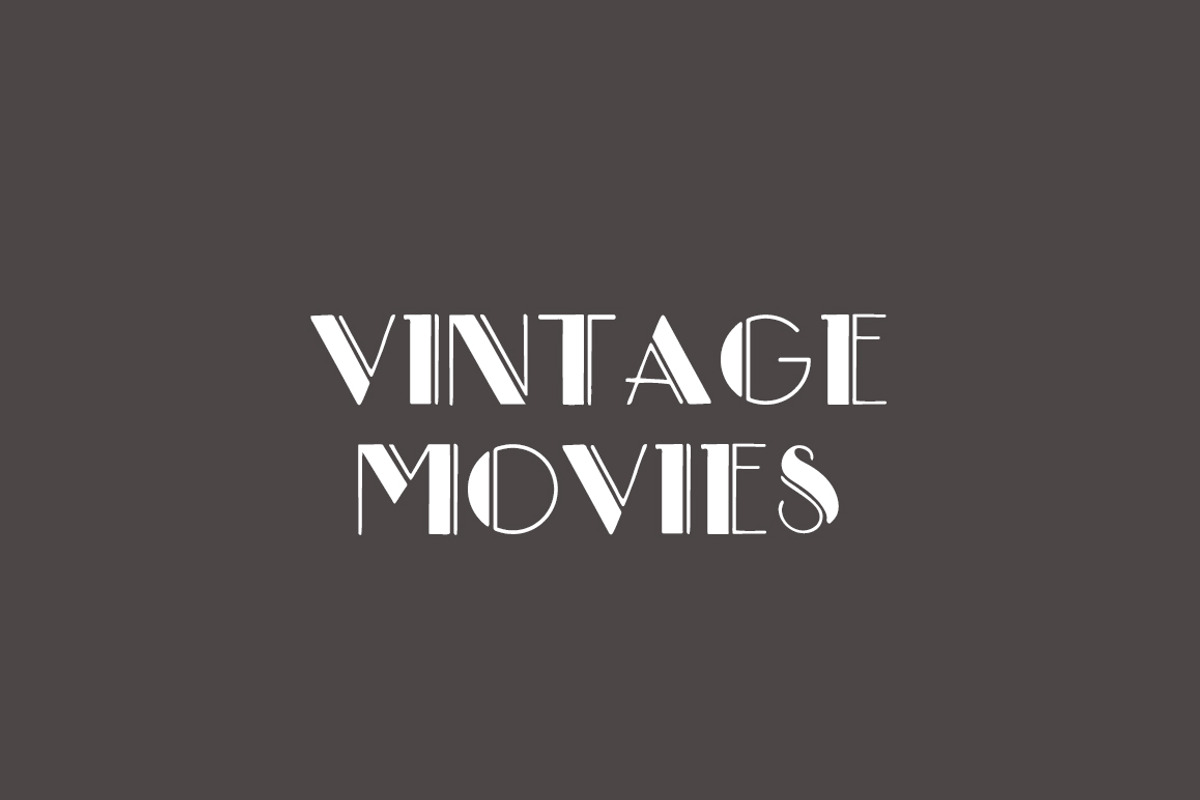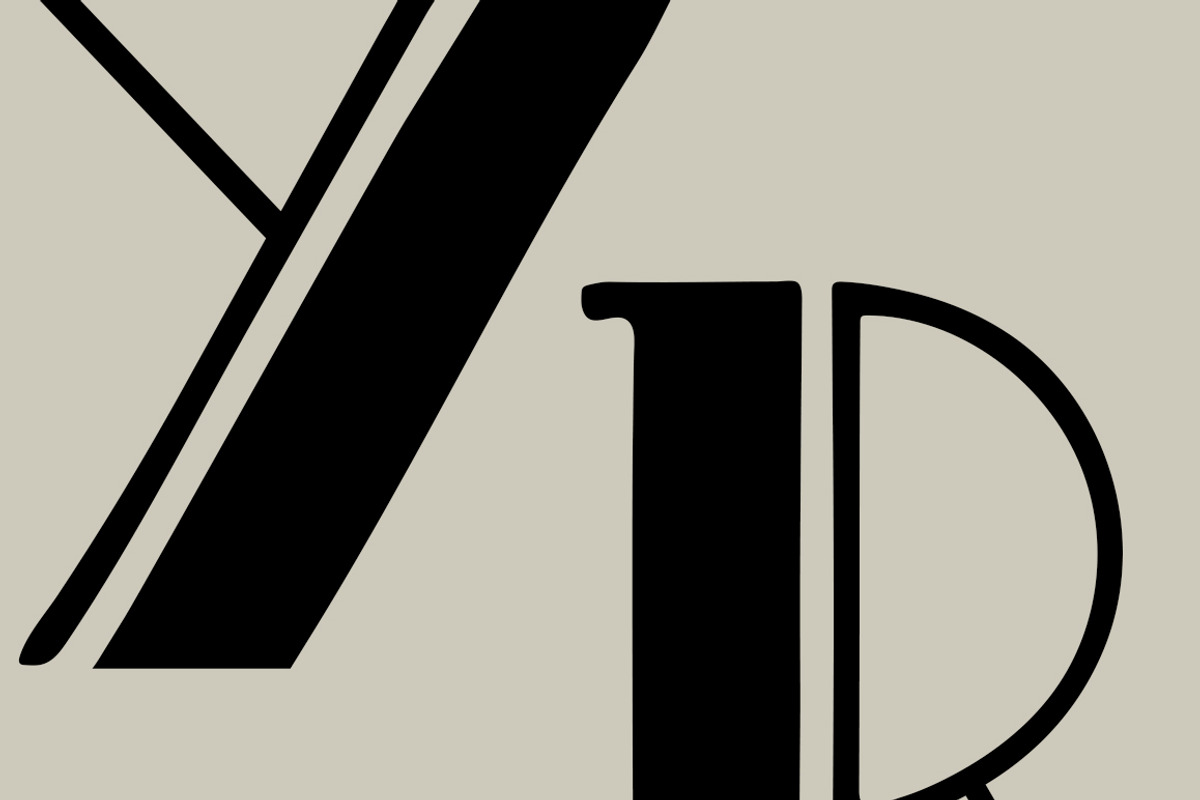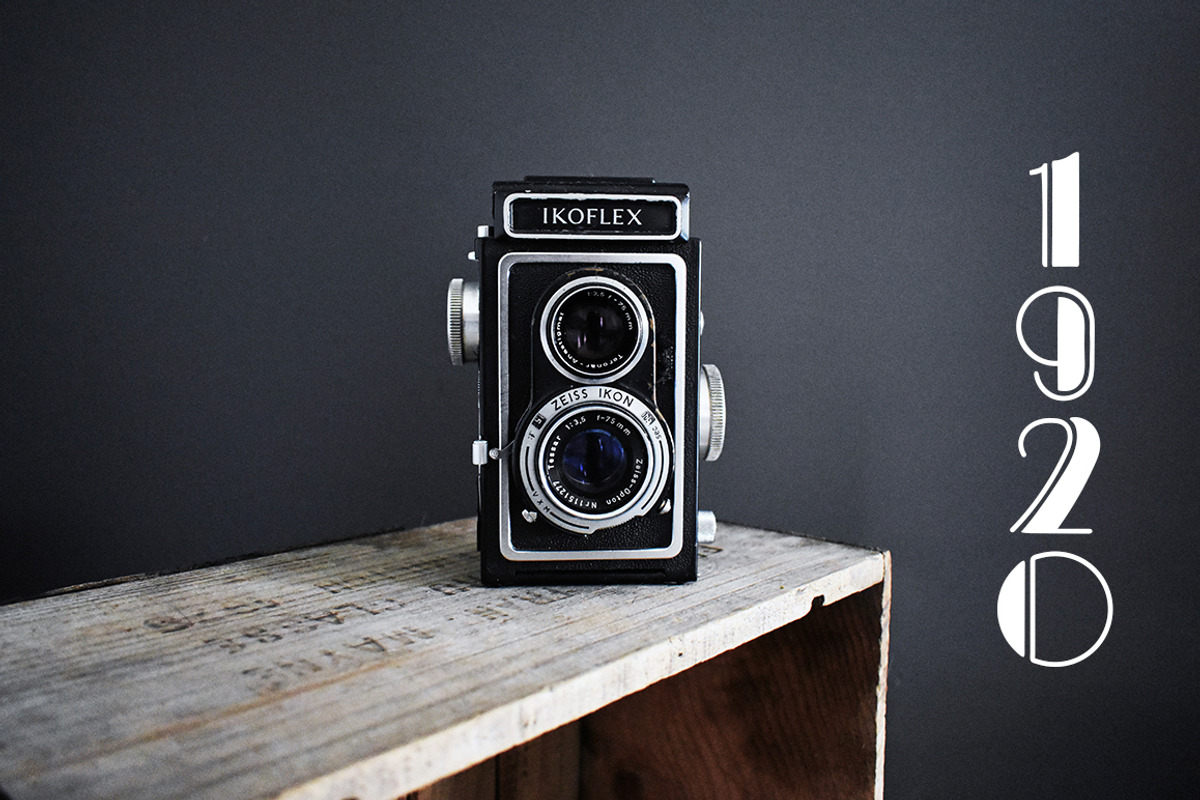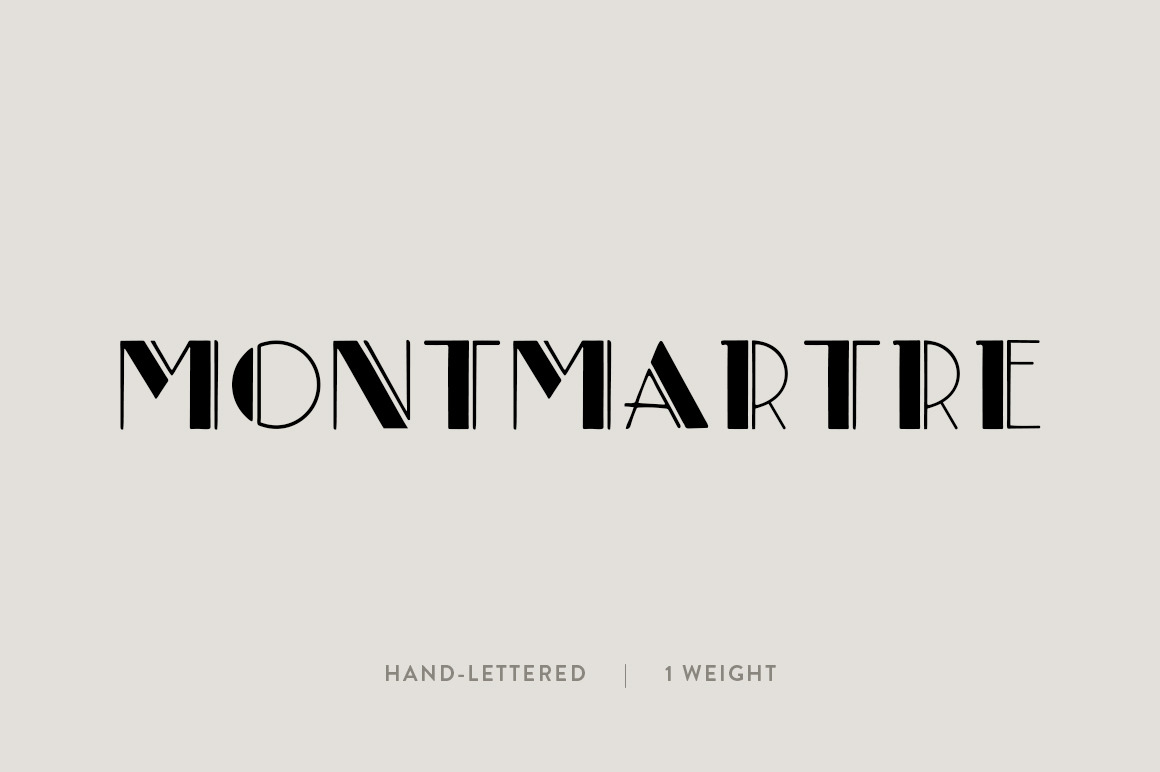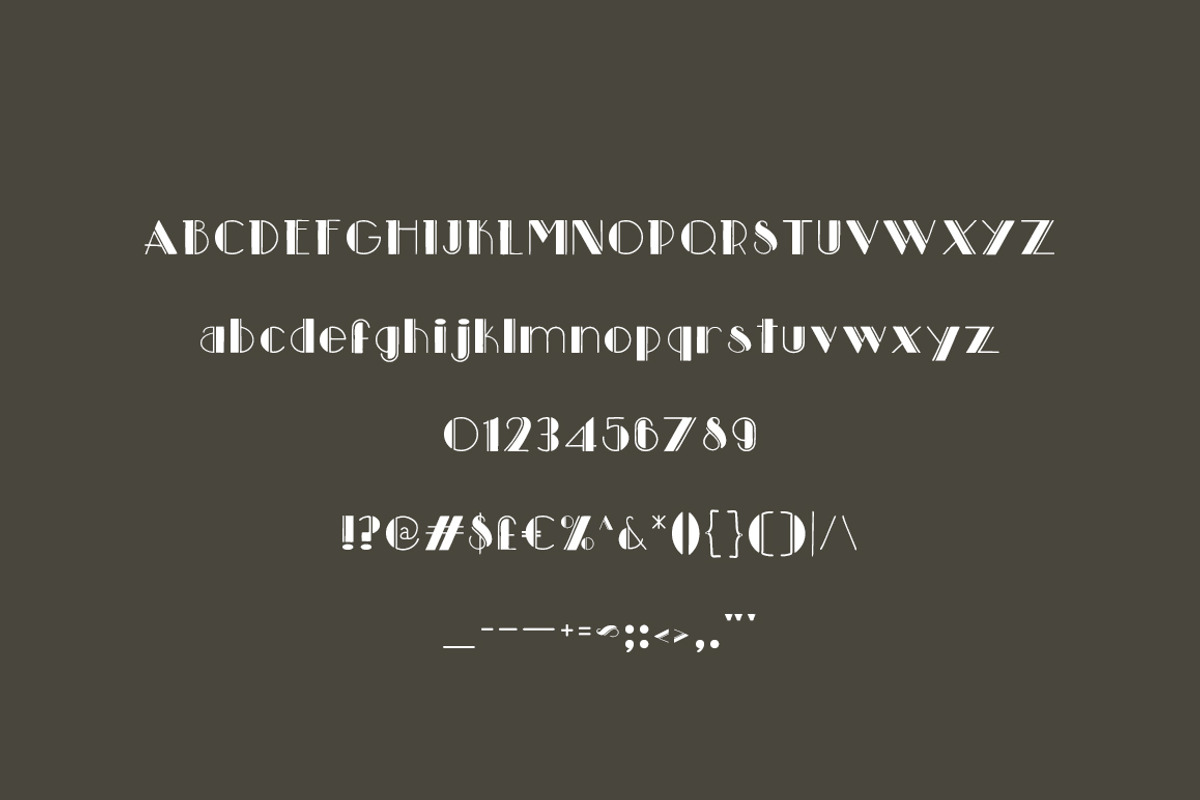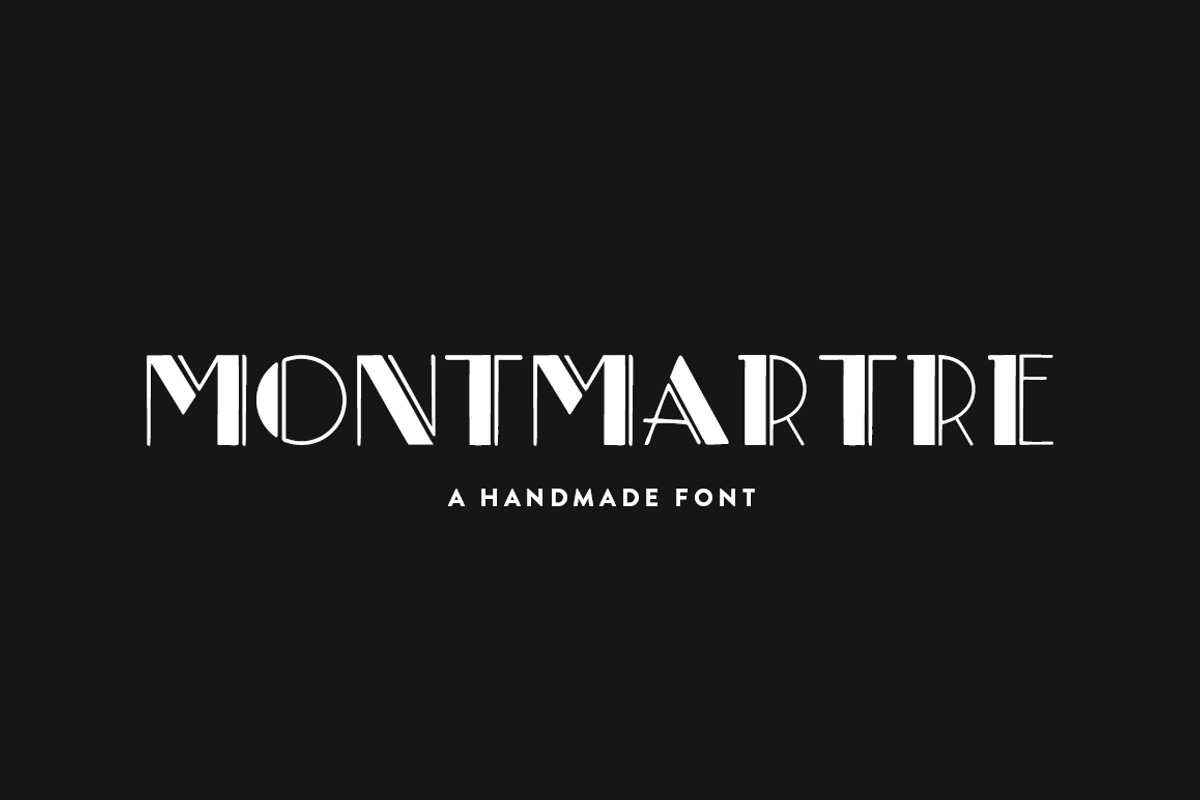
Montmartre: A Paris-Inspired Font
The Montmartre Font
Montmartre was inspired by a Spring trip to Paris, France wandering around the Montmartre neighborhood. With its bold feel and a slight touch of organic, this font works best as a header font or for smaller bodies of text. It is perfect for projects that need a naturally bold font like blog posts, social graphics, event posters, and logos.
This font was created by hand and then digitized. Enjoy!